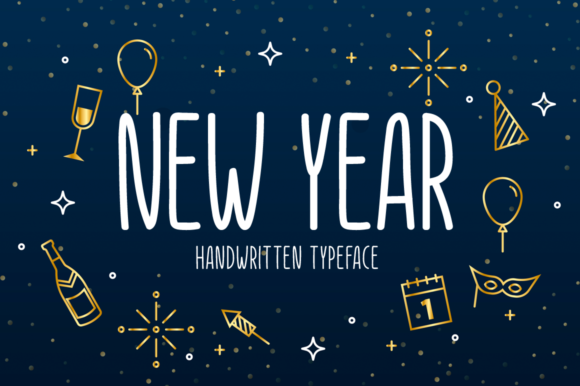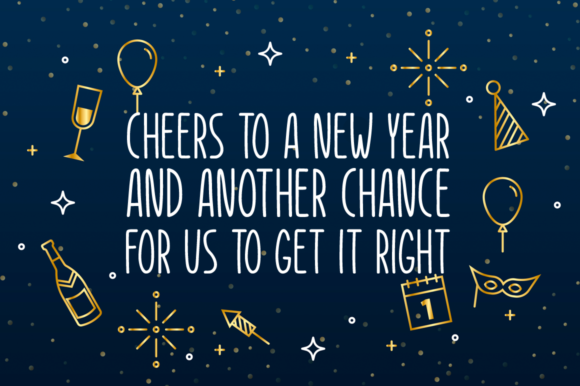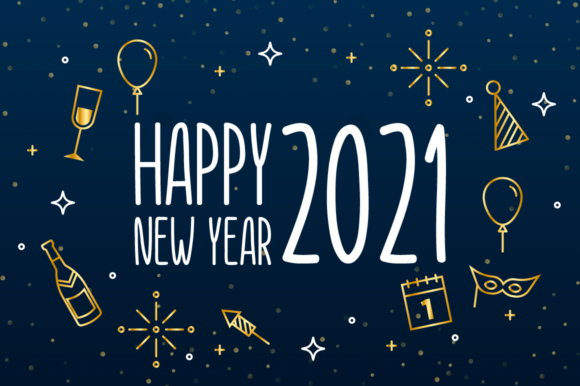
New Year Font
Introducing the New Year handwritten font! A beautiful monoline font that has narrow letters and a minimalistic feel to it.
It is perfectly suited for stationery, logos, t-shirt, paper, print design, website header, photo frame, flyer, music cover, poster, image slider, and much more.